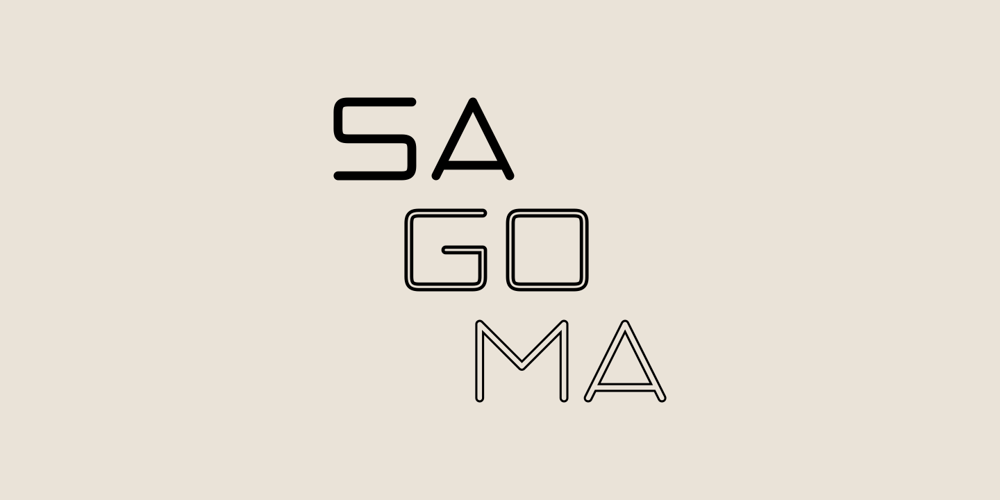
Sagoma
Sagoma font
Sagoma Font Family was designed by Stefano Giliberti and published by Stefano Giliberti. Sagoma contains 6 styles and family package options. Sagoma is a font family expression of conscious opulence. It supports 111 languages, features a total of 311 glyphs and includes an italicized version for each of the 3 weights.